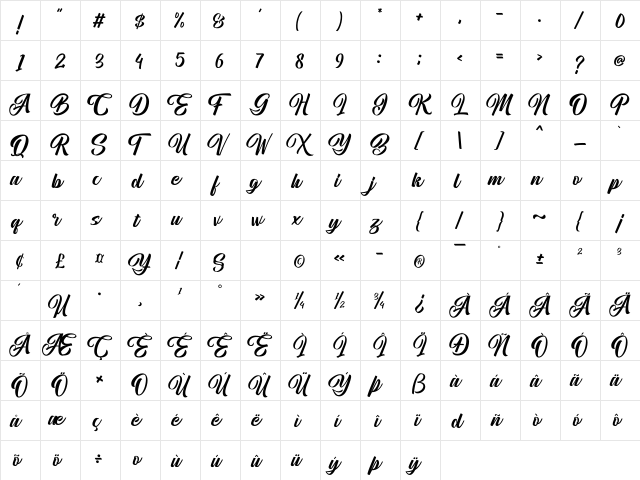
Moga Rezeki Rezeki
| Foundry | Astageni Type |
| Designer | Nur Solikh |
Design Context for Moga Rezeki Typeface
Moga Rezeki is a composed and adaptable typeface that performs quietly and consistently across a wide range of design contexts.